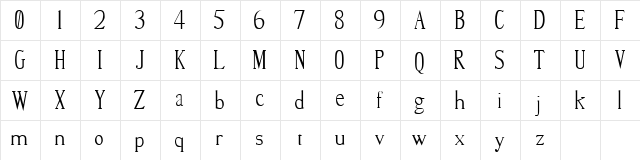
smiTe Regular
Design Context for smiTe Typeface
smiTe takes a measured approach to typography — its balanced proportions and neutral character make it a reliable workhorse for both digital and print work.